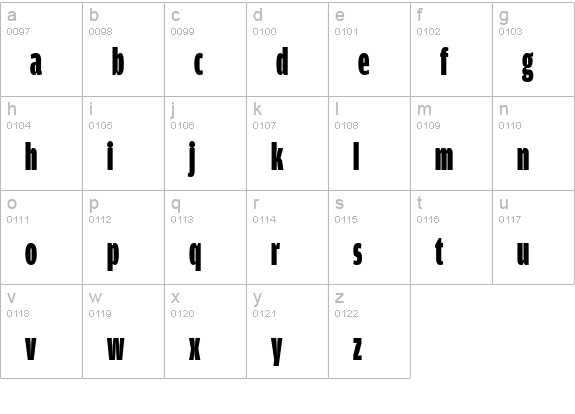
AmplitudeExtraComp-Ultra Font Details
AmplitudeExtraComp-Ultra is an extreme-weight, display variant in the AmplitudeExtraComp typeface family \xE2\x80\x94 well suited to extreme display use where maximum visual weight is required.
AmplitudeExtraComp-Ultra is a stunning and bold display font that commands attention with its strong and distinct presence. With its extra condensed style and ultra weight, this typeface is perfect for creating impactful headlines, titles, and branding materials that demand to be noticed. This font features clean lines and sharp edges, giving it a modern and sophisticated feel that is both timeless and versatile. Whether you're designing a sleek website, eye-catching posters, or striking packaging, AmplitudeExtraComp-Ultra is sure to make a statement. What's even better is that AmplitudeExtraComp-Ultra is available for free download at FontsMarket.com. This means you can easily access and use this impressive font for all your design projects without any cost. Don't miss out on this opportunity to add a touch of elegance and power to your creations with AmplitudeExtraComp-Ultra font.